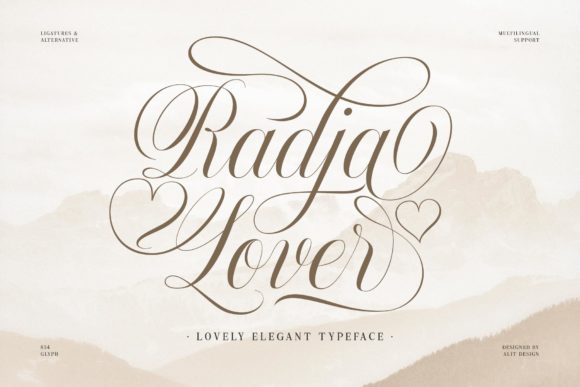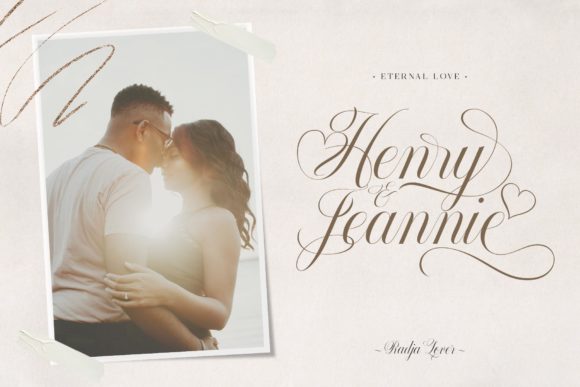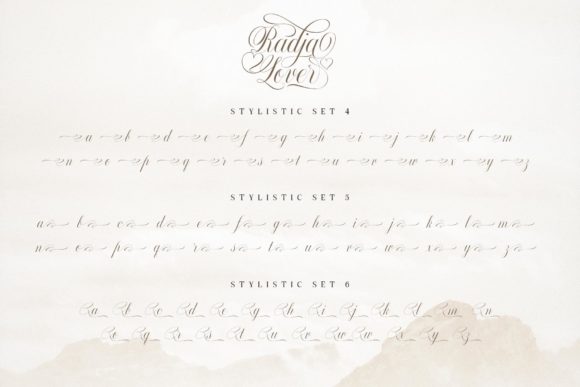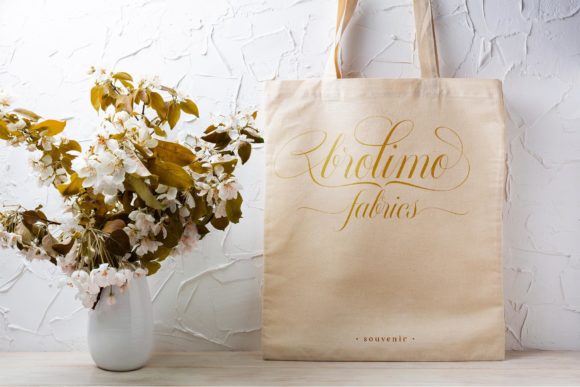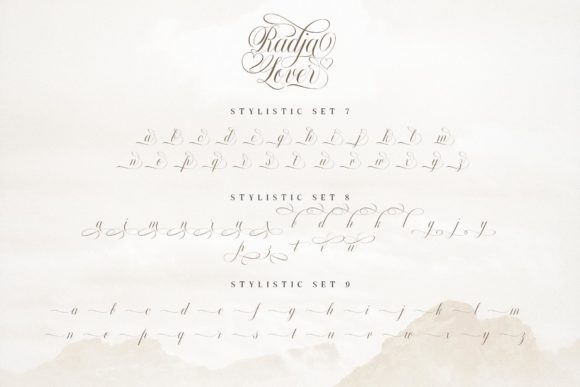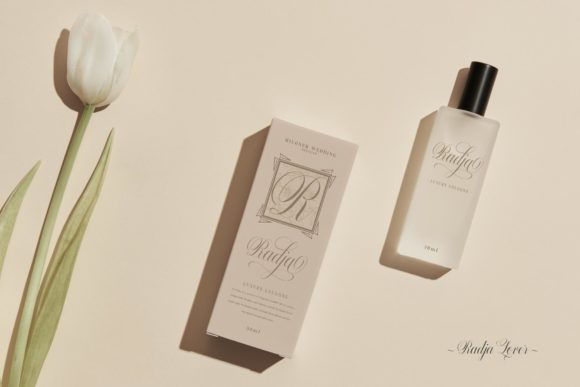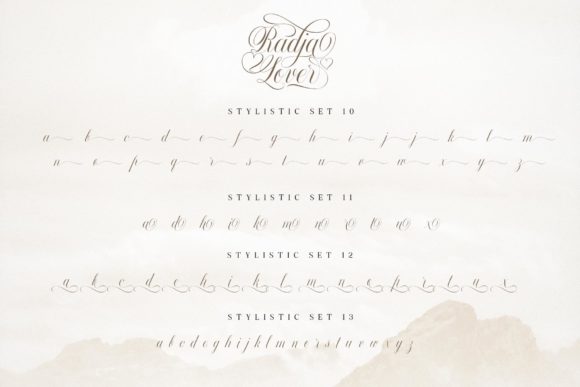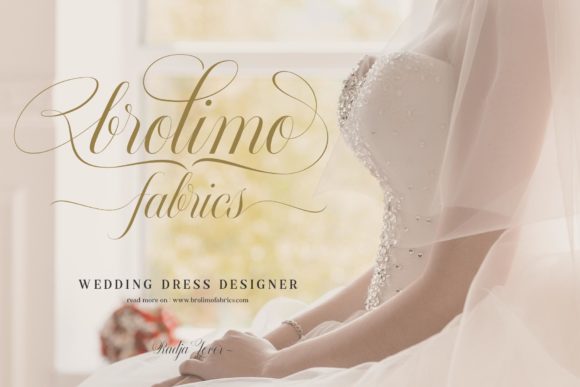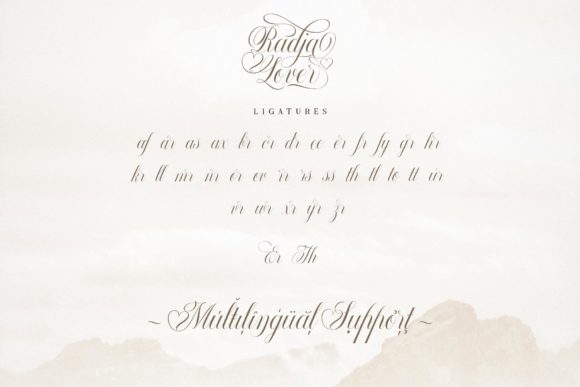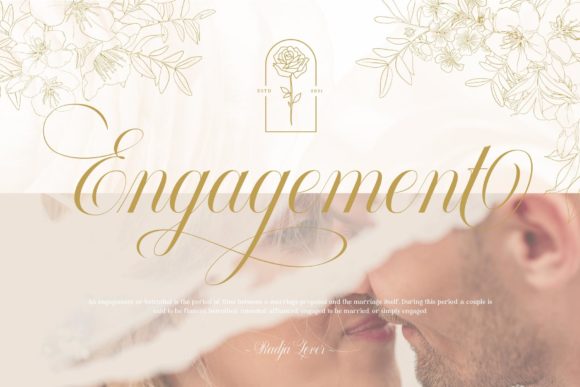
Radja Lover Script Font
About Radja Lover Script Font
Radja Lover Script is a Valentine’s Day inspired font made for various romantic themes. It adheres to a simple and elegant modern script style, besides that this font has a unique swash in the shape of a heart that can be used for unique love designs. This font is PUA encoded which means you can access all of the glyphs and swashes with ease!